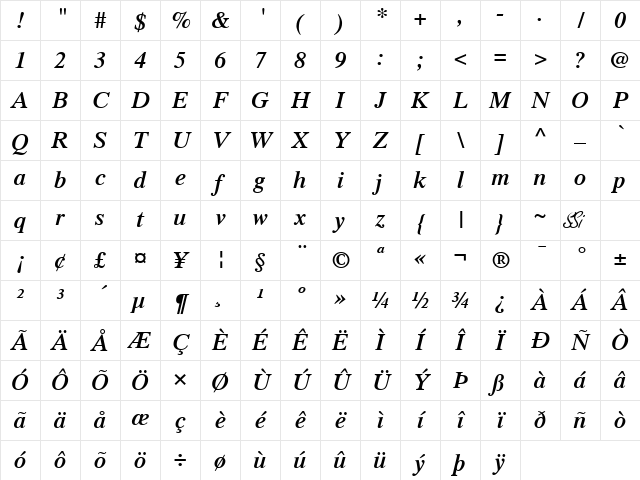
Greco SSi Semi Bold Italic
Style: Semi Bold Italic
Greco SSi Family
Greco SSi Semi Bold Italic
Complete Greco SSi Semi Bold Italic glyph index. Displaying only characters natively supported by Greco SSi Semi Bold Italic font.
Design Context for Greco SSi
Greco SSi is a composed and adaptable typeface that performs quietly and consistently across a wide range of design contexts. The slanted form adds forward momentum and visual energy. Its bold stroke weight gives it real presence on the page.